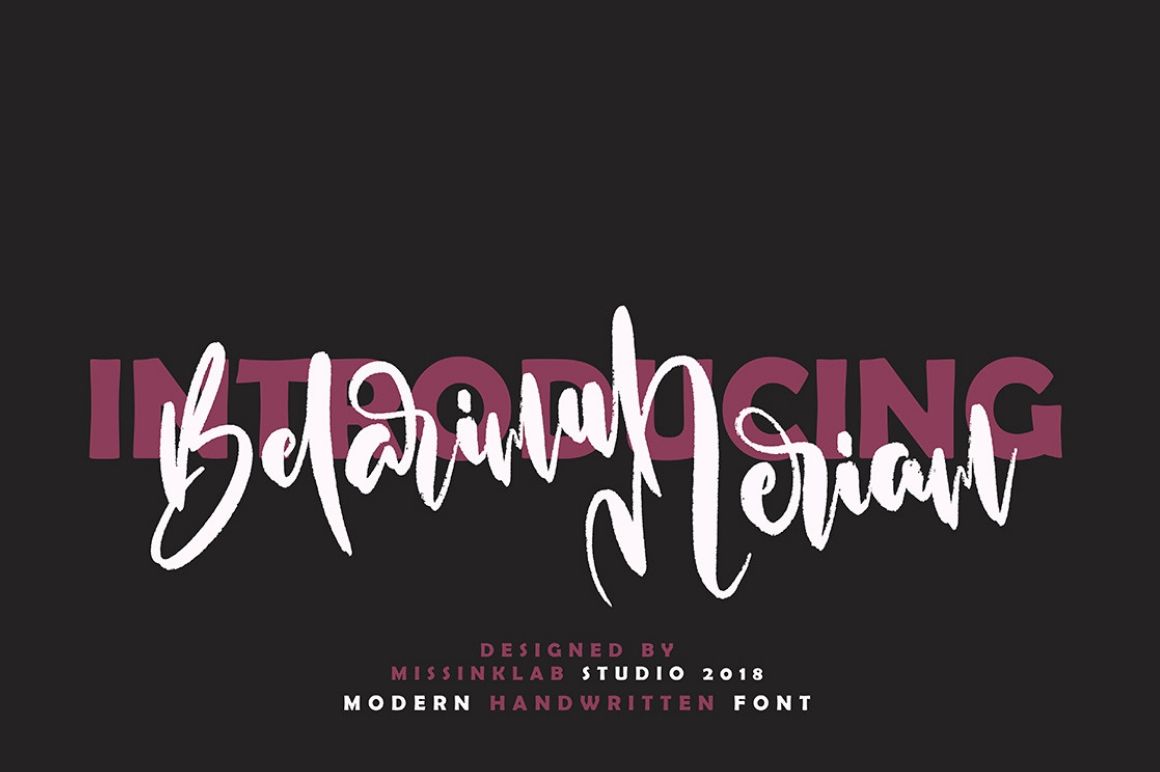
Belarimul Meriam Free Font
This is a modern brush script commercial use font with modern style. This font is perfect for many different projects like quotes, logo, blog header, poster, wedding, banding, fashion, apparel, letter, invitation, stationery, etc